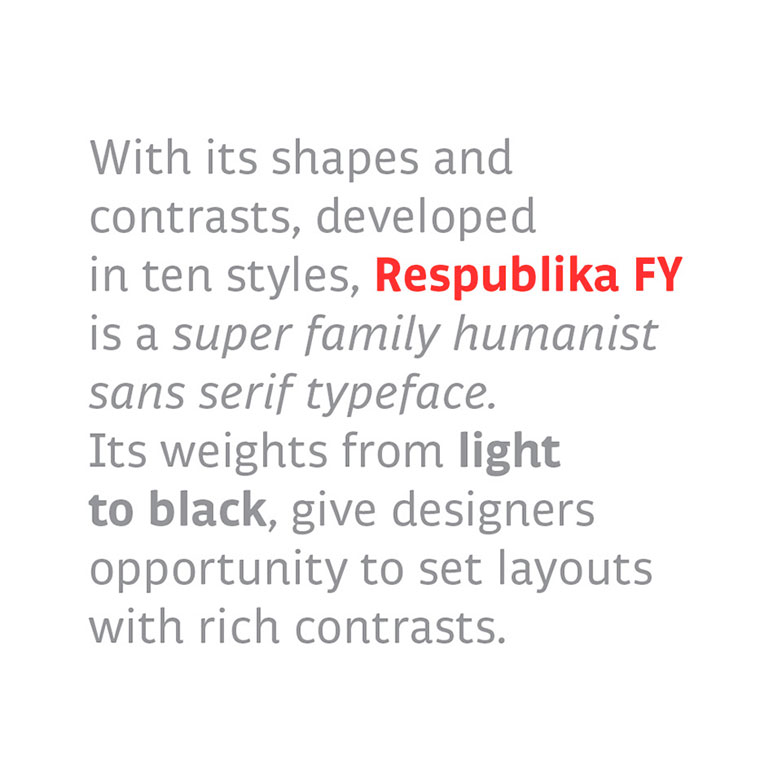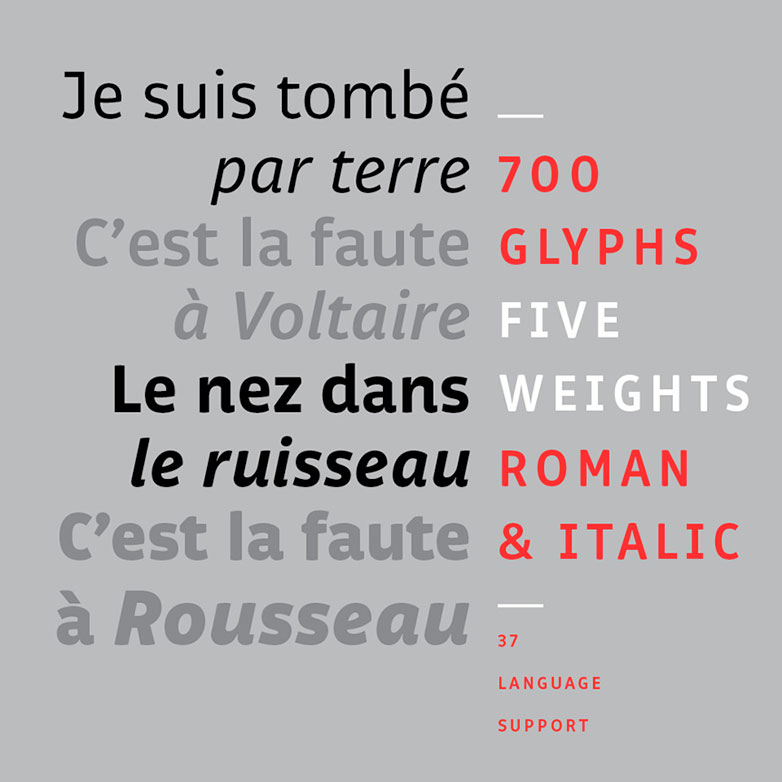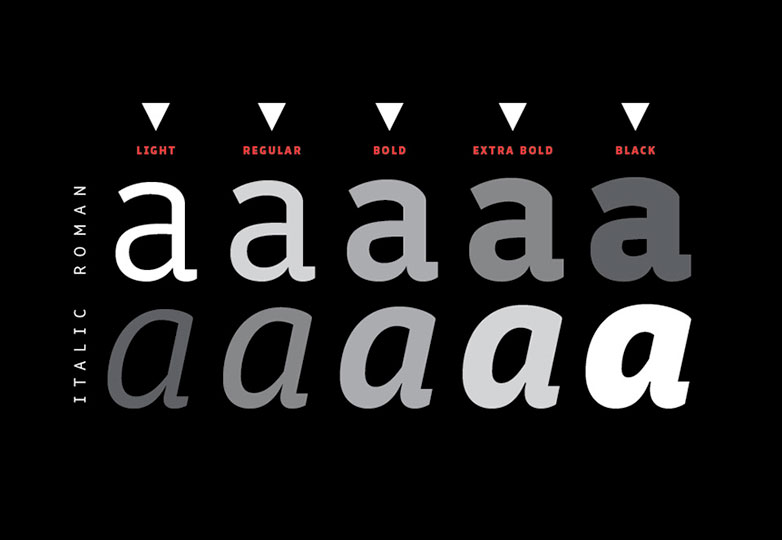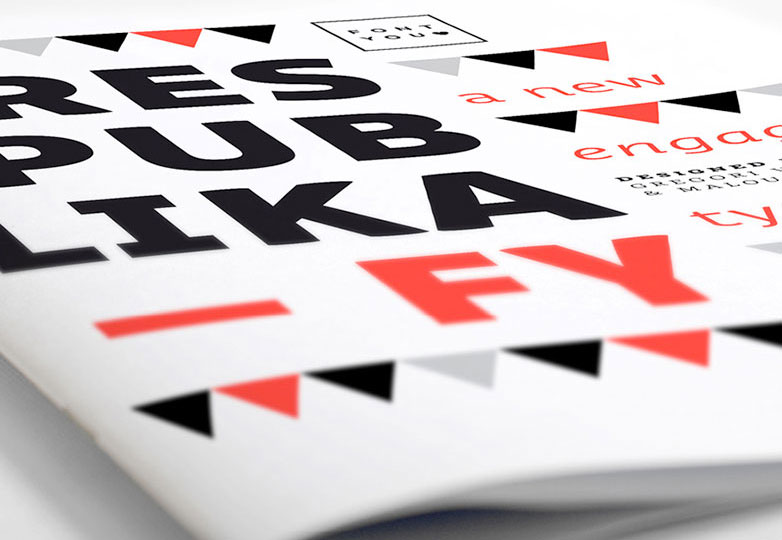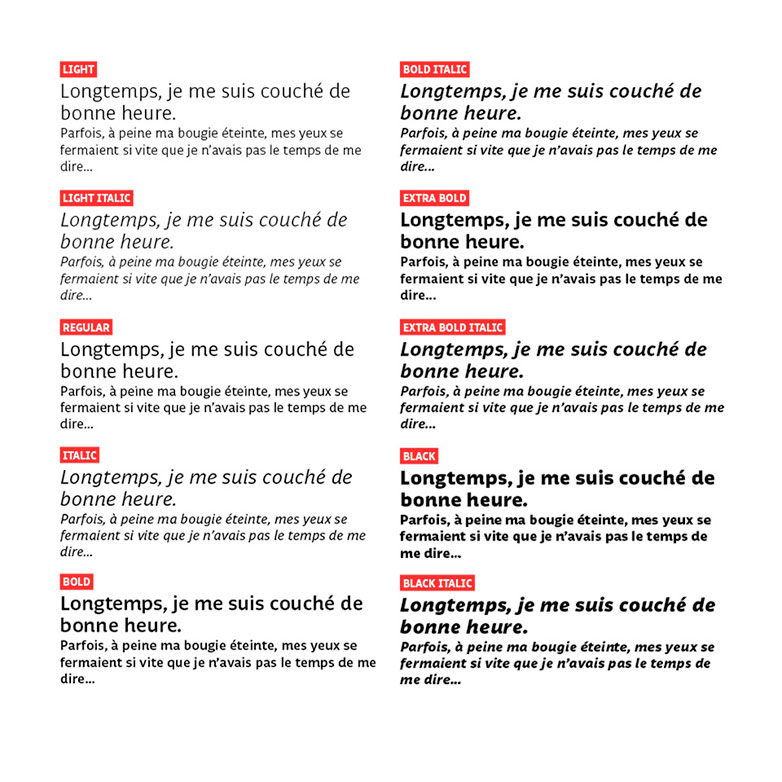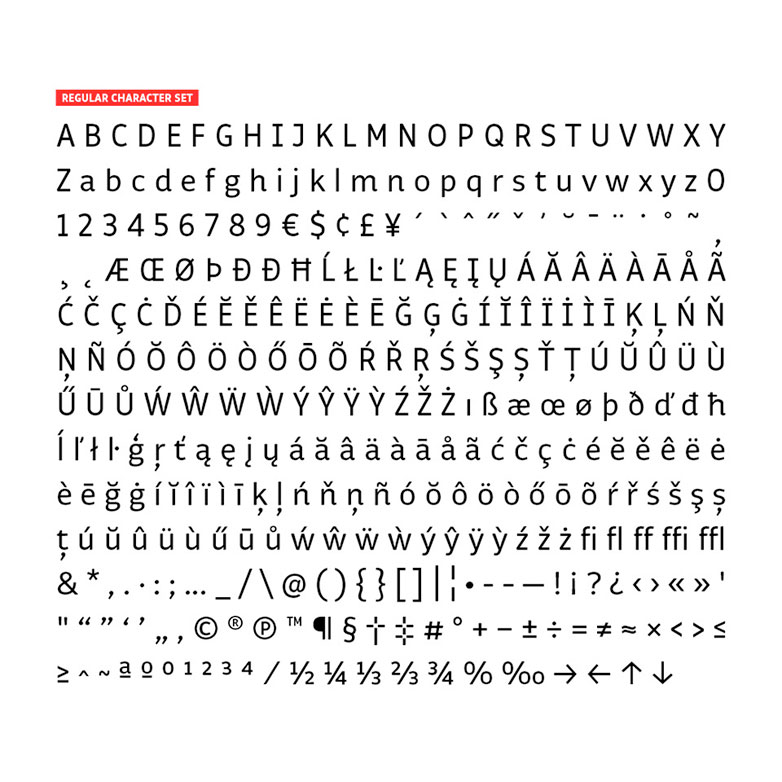
It’s often difficult to settle on a strong sans-serif. So many carry a lot of baggage with them; Helvetica is everywhere, Arial is Helvetica, Verdana really only works on screen, and everything else is hugely expensive.
Respublika is a humanist sans-serif, featuring a simple overall form, but packed with little details that impart its character. Just take a look at the cursive-style finials on the lowercase ‘a’, ‘h’, ‘m’ and ’n’. Zoom in close and look at the way the ends of the vertical stems have been curved to create a friendly welcoming feel.
Respublika is the perfect contemporary corporate typeface. Simple, modern and legible; whilst being warm, friendly and approachable; Respublika is the ideal choice for branding anything from an engineering firm, to an accountancy practice, to a dentist’s office.
Superbly legible, especially online, Respublika features 10 different fonts: light, light italic, regular, italic, bold, bold italic, extra bold, extra bold italic, black and black italic; giving you a full range of expressive possibilities. What’s more, each font comes with a full range of analphabetic characters, enabling its use for most western languages.